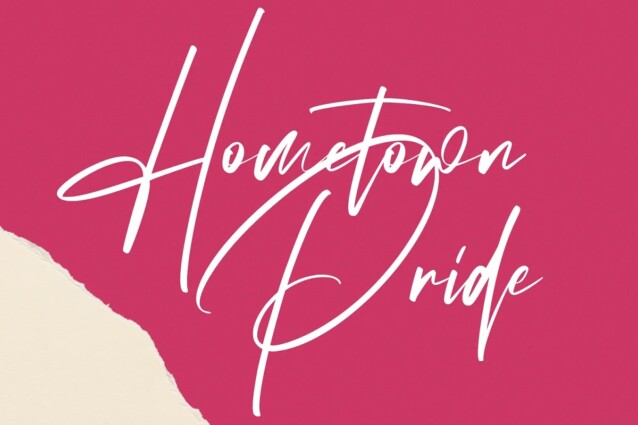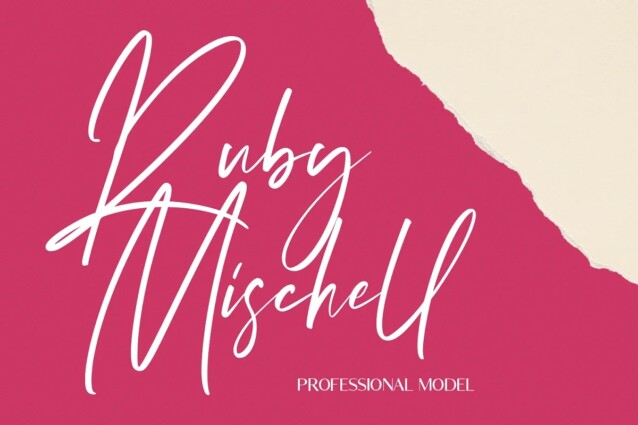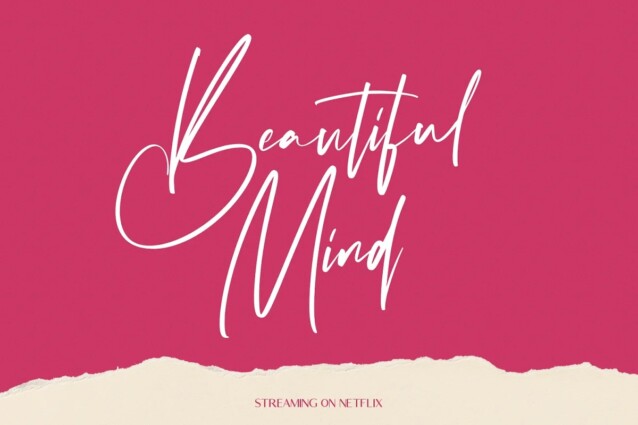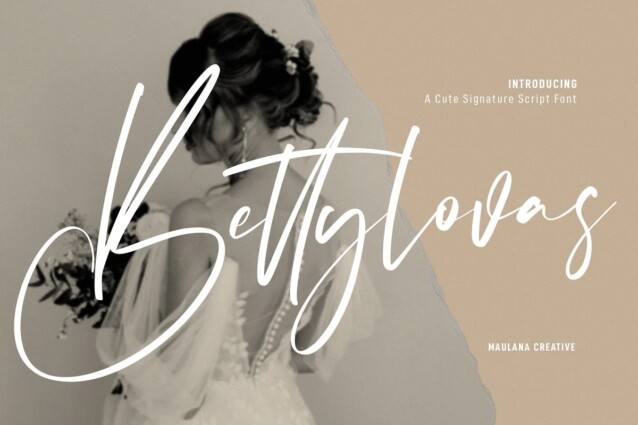
Bettylovas Font
Bettylovas Font is a light and fresh handwritten font that will inspire any design project with its incredibly romantic feel. With high contrast stroke, fun character with a bit of ligatures and alternates. To give you an extra creative work. Bettylovas font support multilingual more than 100+ language. This font is good for logo design, Social media, Movie Titles, Books Titles, a short text even a long text letter and good for your secondary text font with sans or serif.